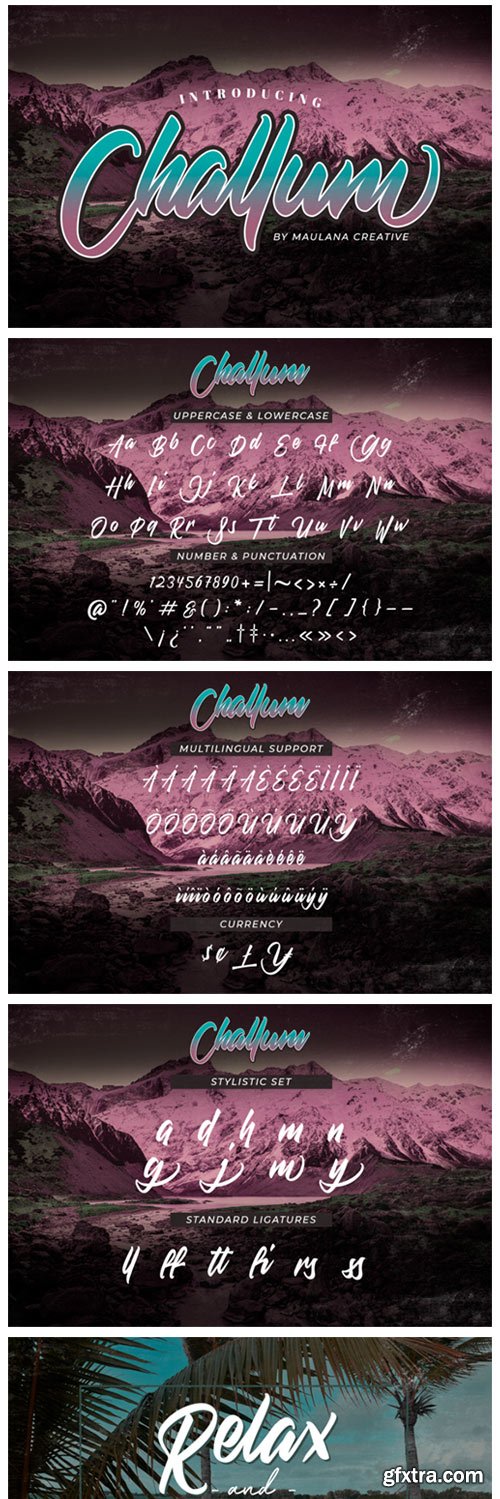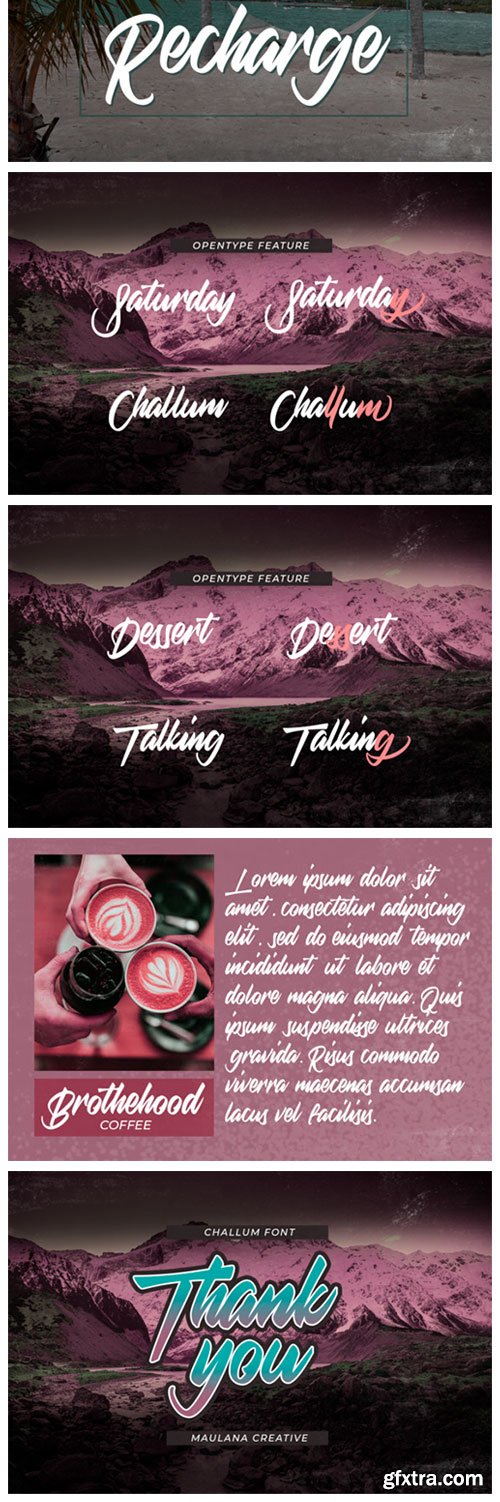
Challum Font
Challum is a cursive and and bold handwritten font, crafted to give your headlines and logotype projects a stylish touch. This font reads as strong, confident, and dynamic and can add tons of nostalgic character to your designs.